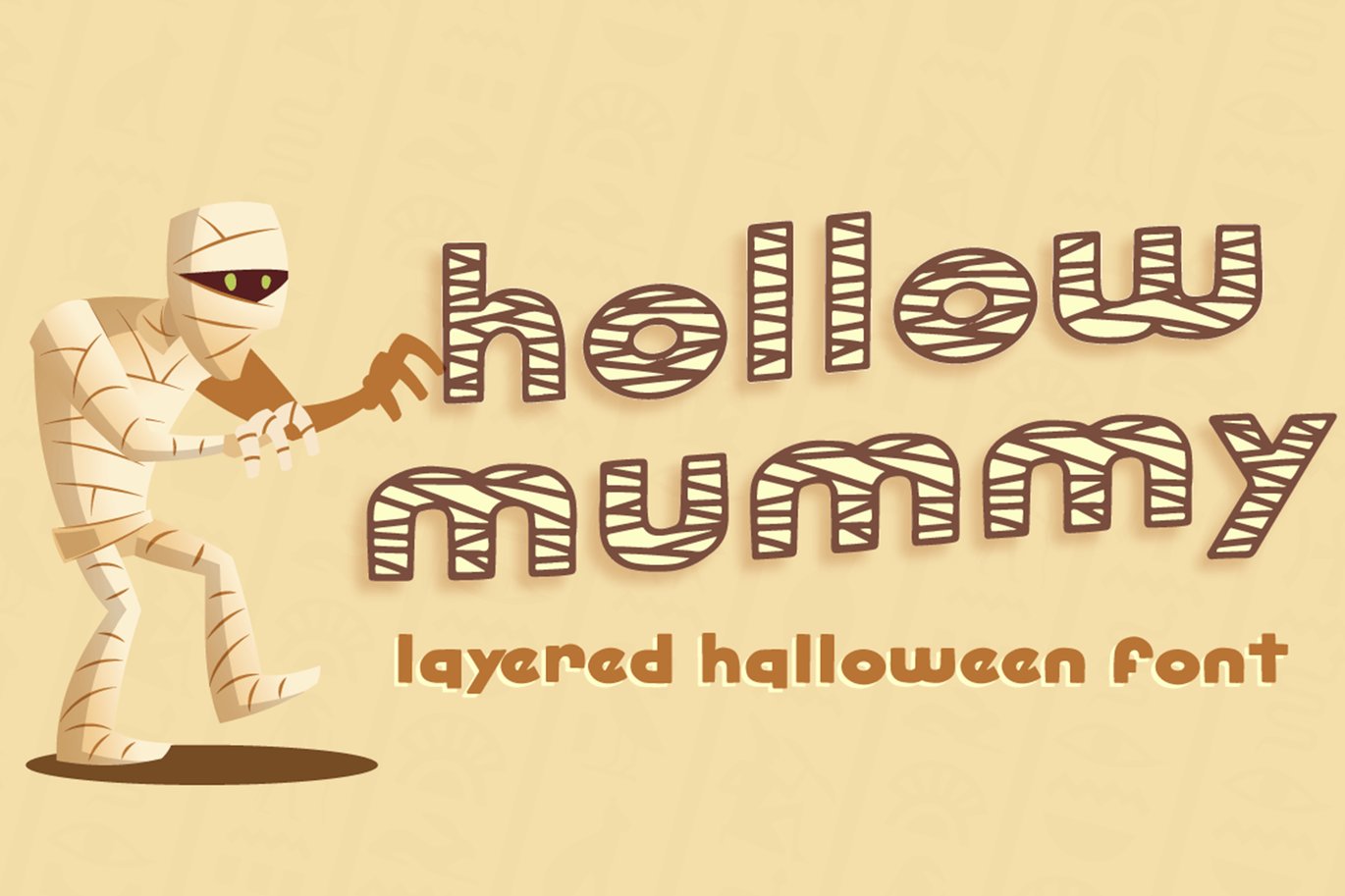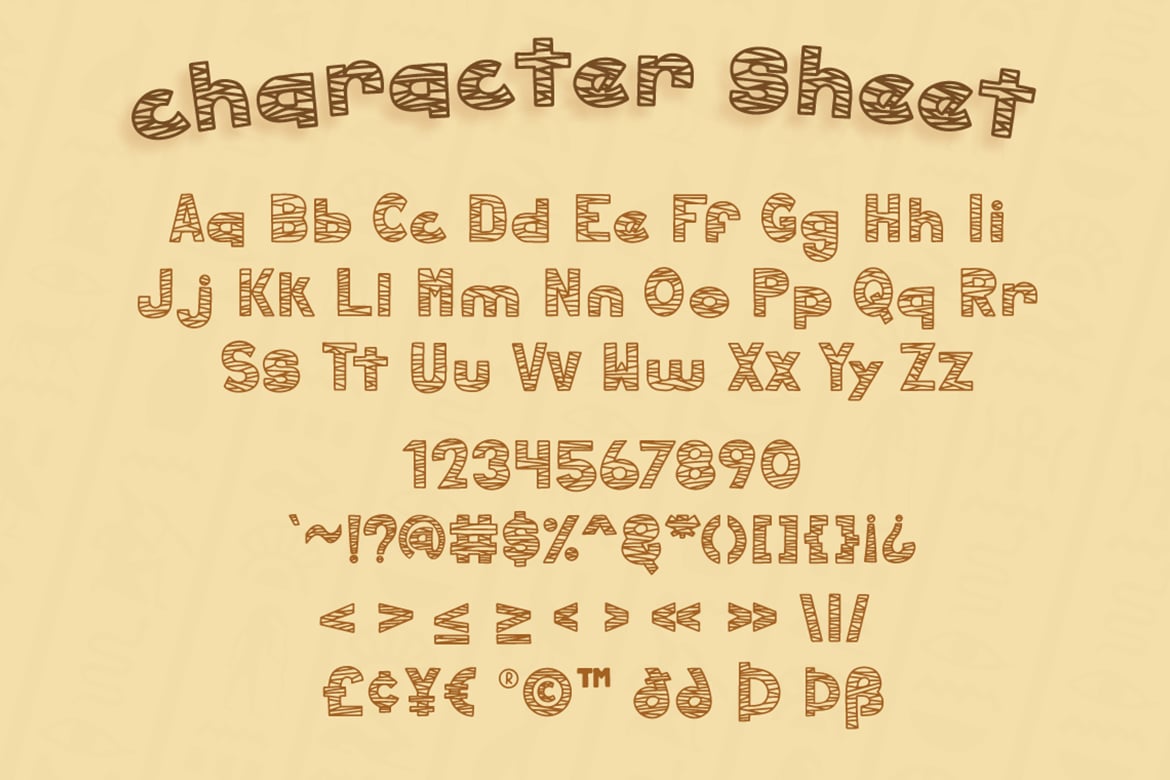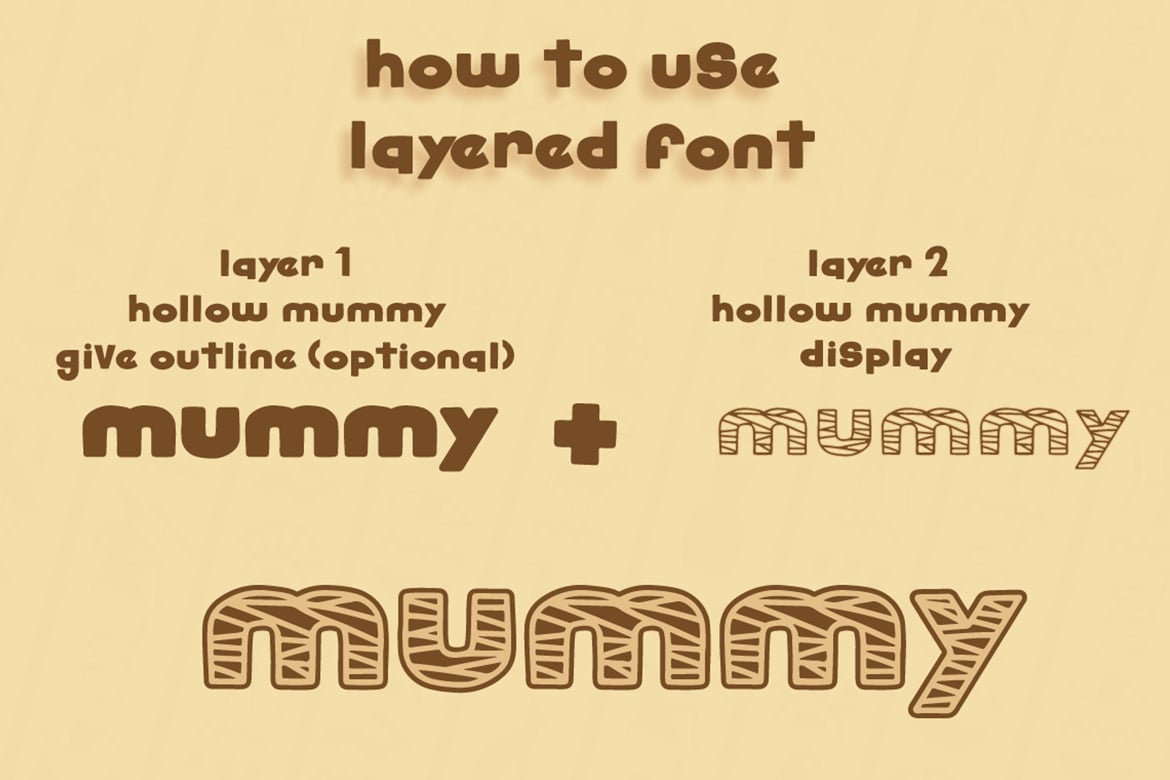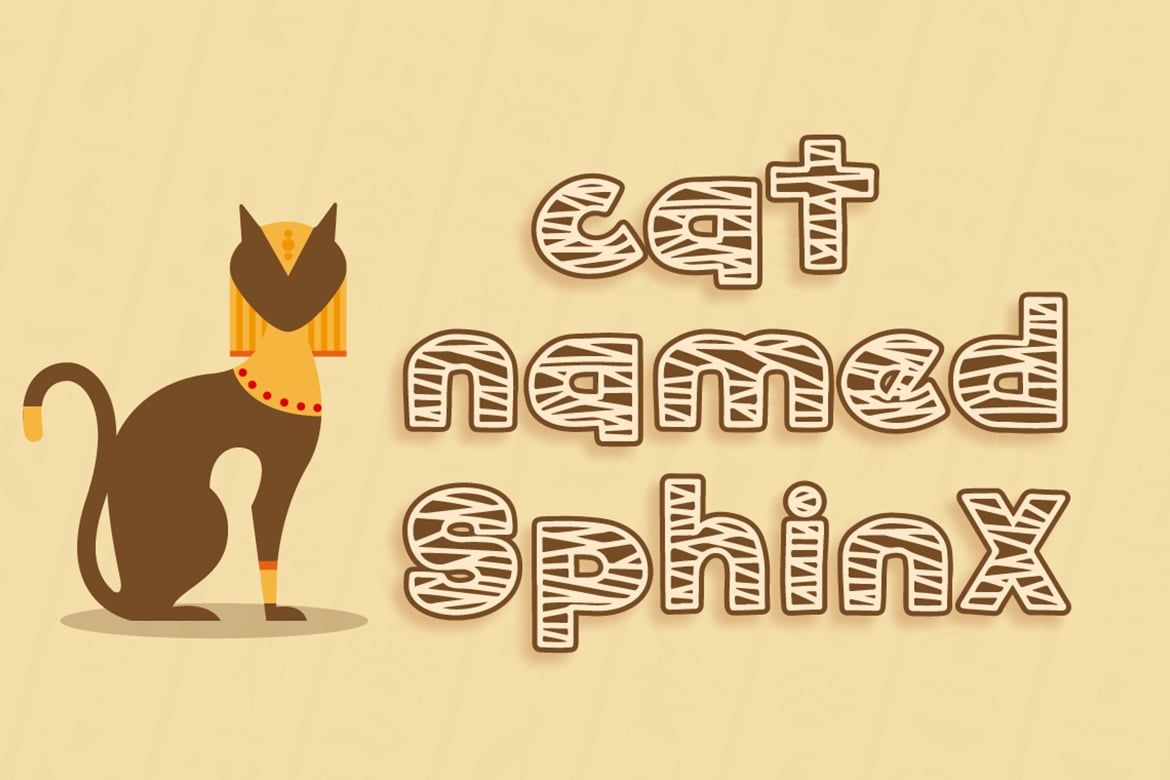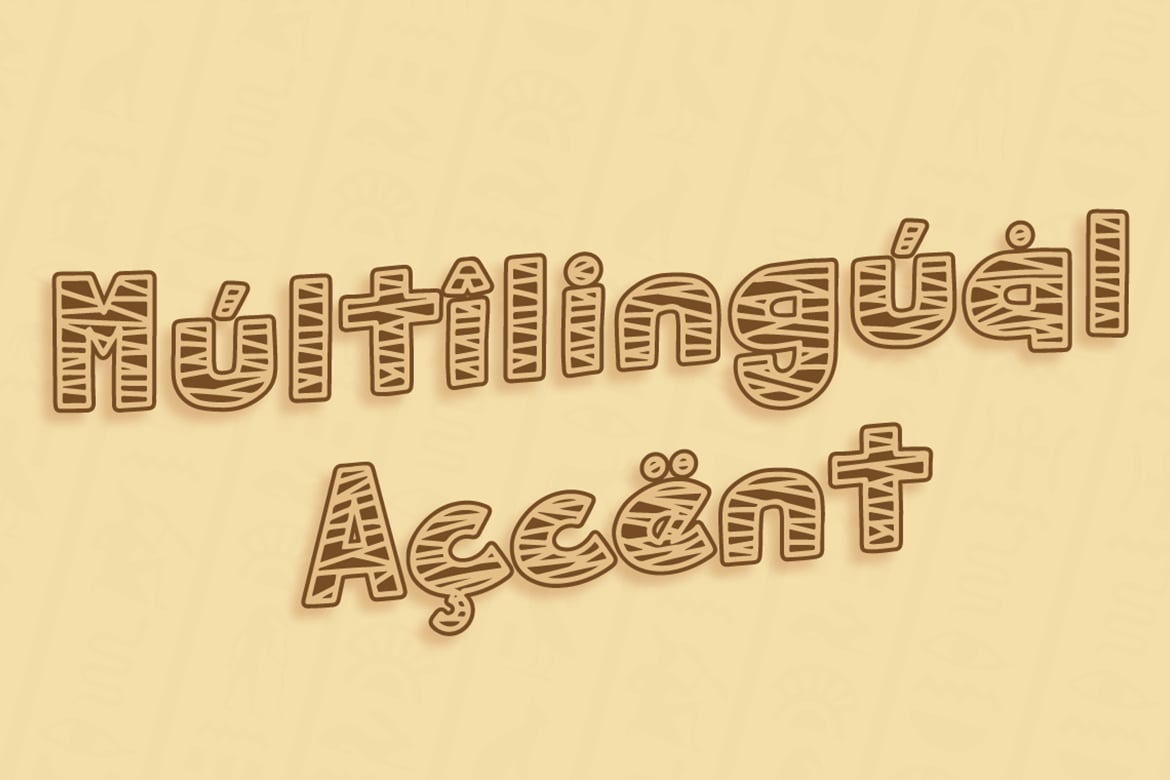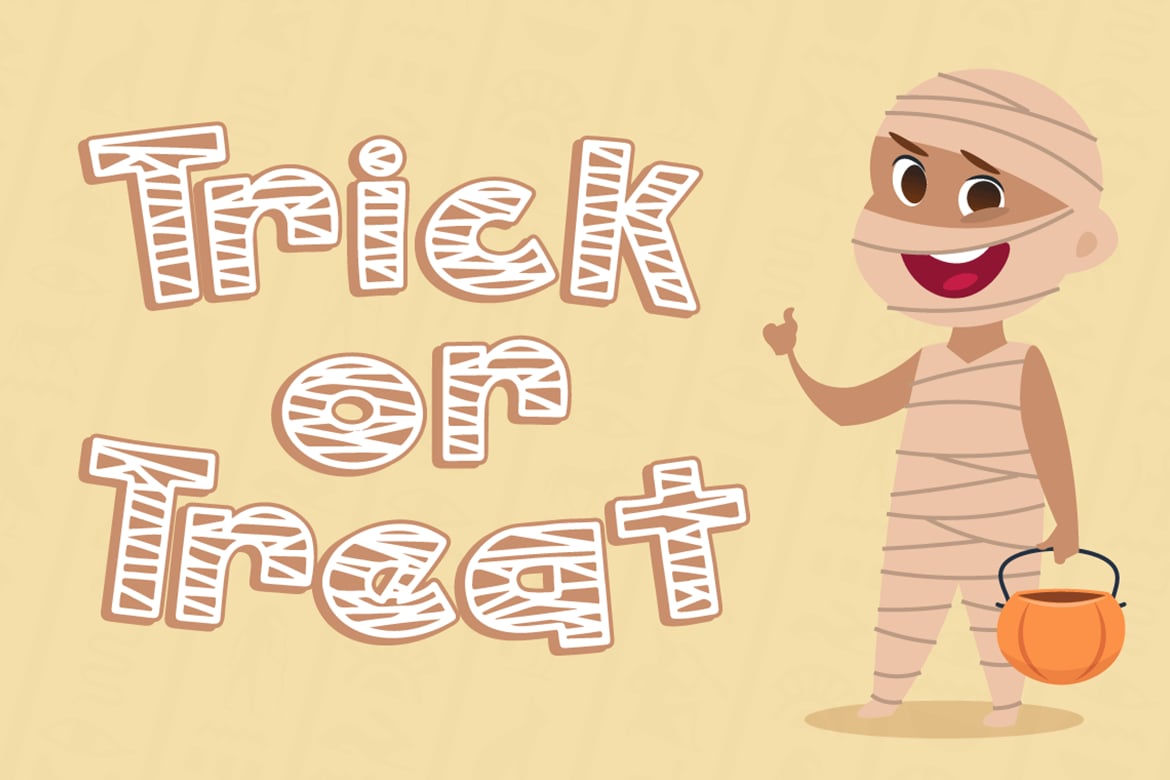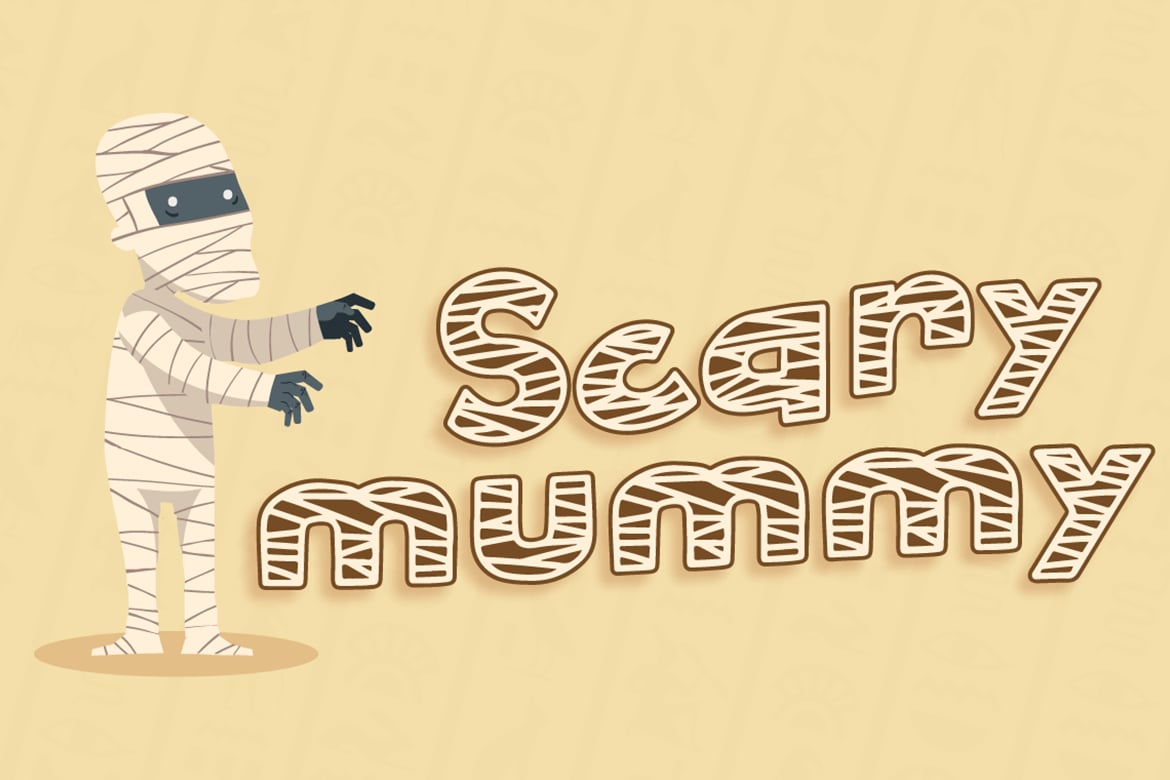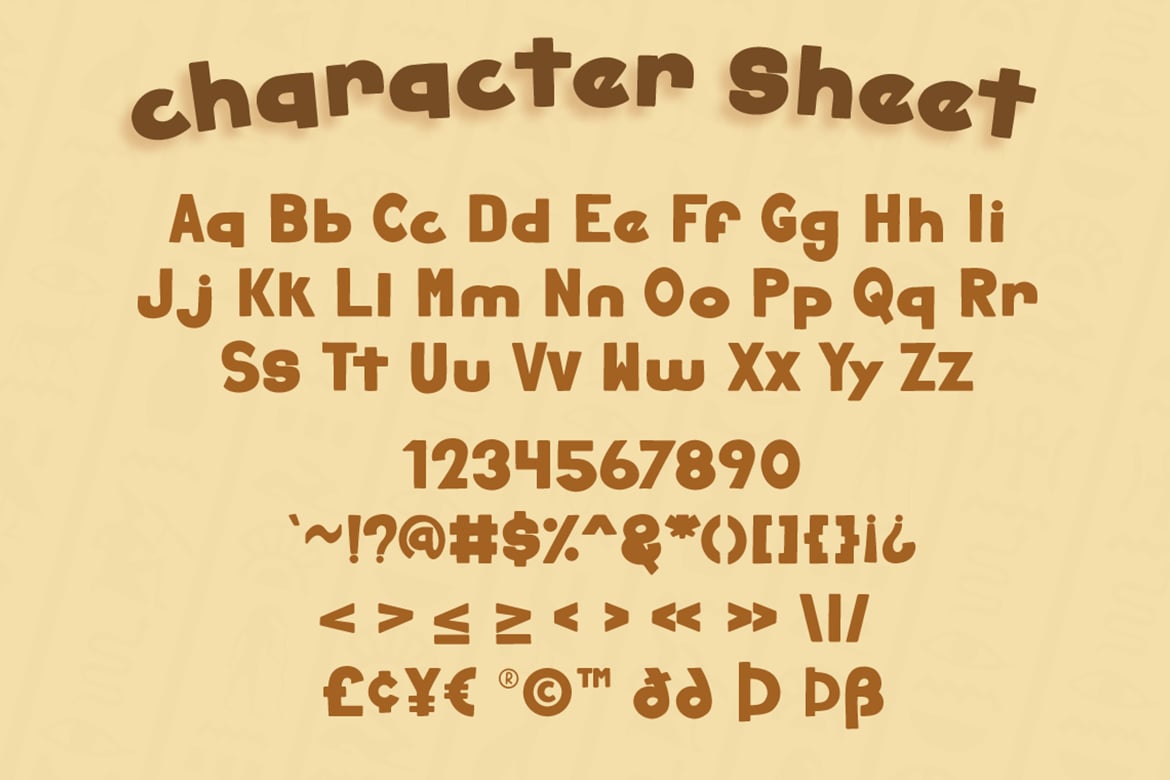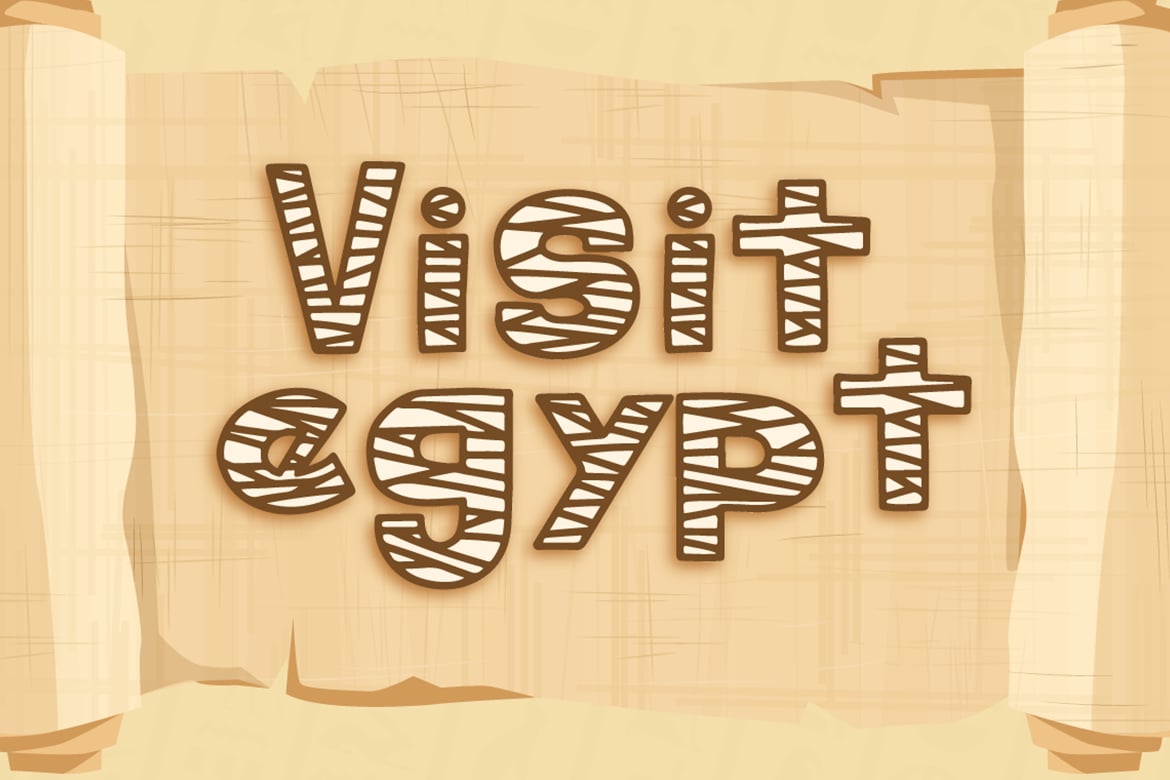
Hollow Mummy – Halloween Font
Hollow Mummy is a bold and authentic display font. Add this font to your creative ideas and notice how it will make them stand out!
- Multilingual Support (Afrikaans, Albanian, Catalan, Danish, Dutch, English, Estonian, Finnish, French, German, Icelandic, Italian, Norwegian, Portugese, Spanisch, Swedish, Zulu)